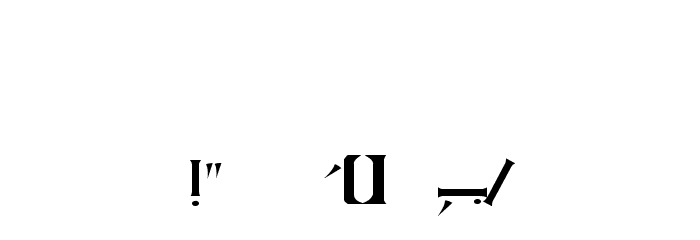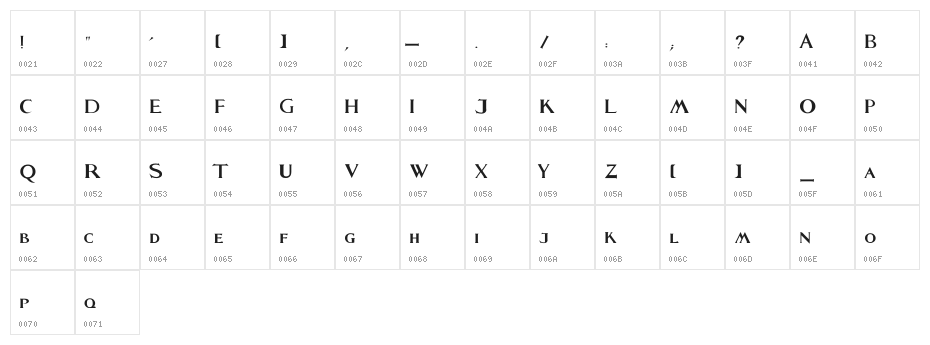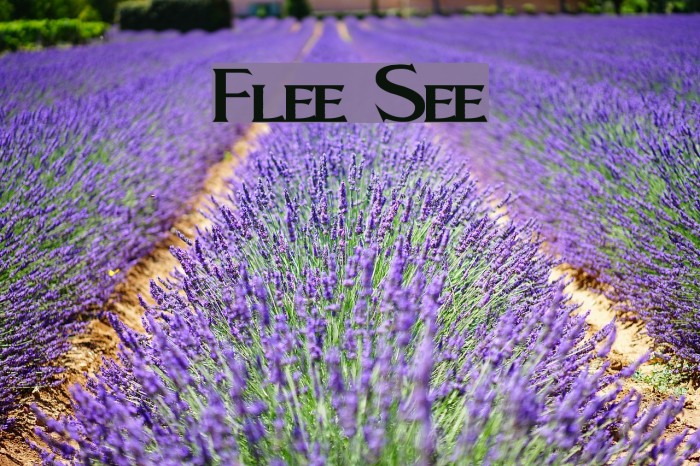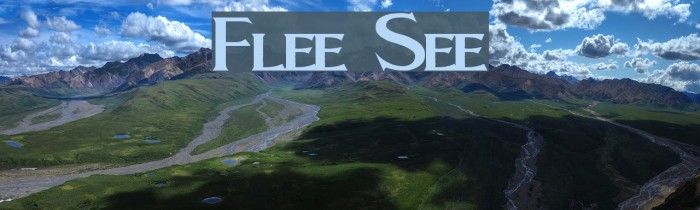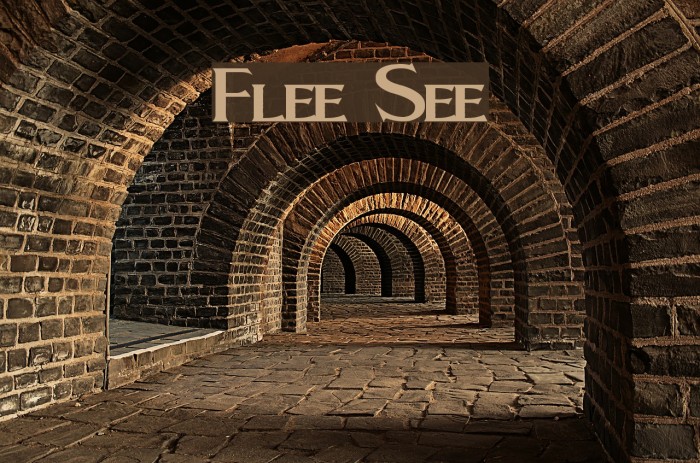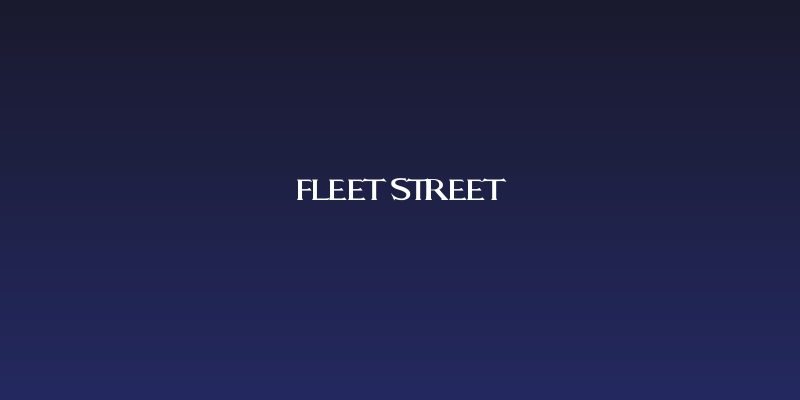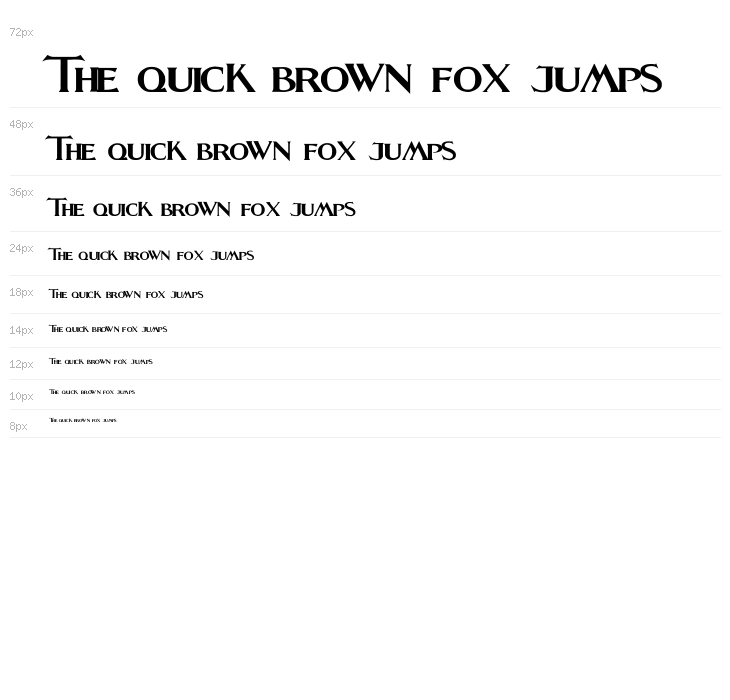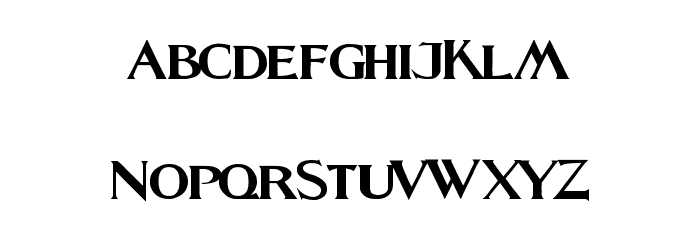
Fleet Street Font
Fleet Street Description
This font features a distinctive and bold design with sharp, angular serifs and a strong presence. The uppercase letters are particularly striking, with a medieval or gothic influence that gives them a dramatic flair. The lowercase letters maintain this style, offering a cohesive look across the alphabet. The numbers and special characters are equally bold, ensuring consistency throughout. The font's unique style makes it ideal for projects that require a touch of historical or fantasy elements, such as book covers, posters, or themed event invitations.